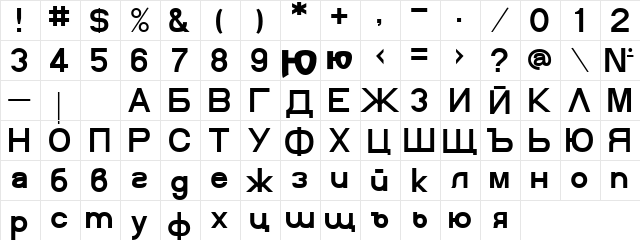
Zurichbg Normal
Design Context for Zurichbg Typeface
Zurichbg is a composed and adaptable typeface that performs quietly and consistently across a wide range of design contexts.